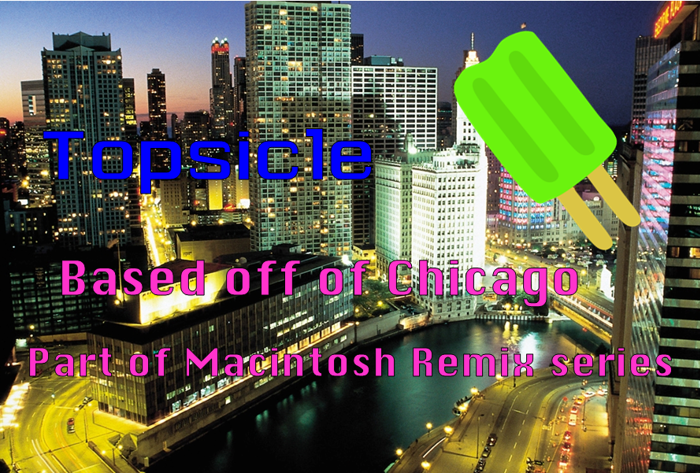
Topsicle Font
Topsicle is a remake of Susan Kare's popular Macintosh font known as Chicago when it was introduced to Macintosh Computers in 1984. It is a cousin of bitmap font, Earl's Revenge.
Part of Macintosh Remix series and Remade Fonts series.